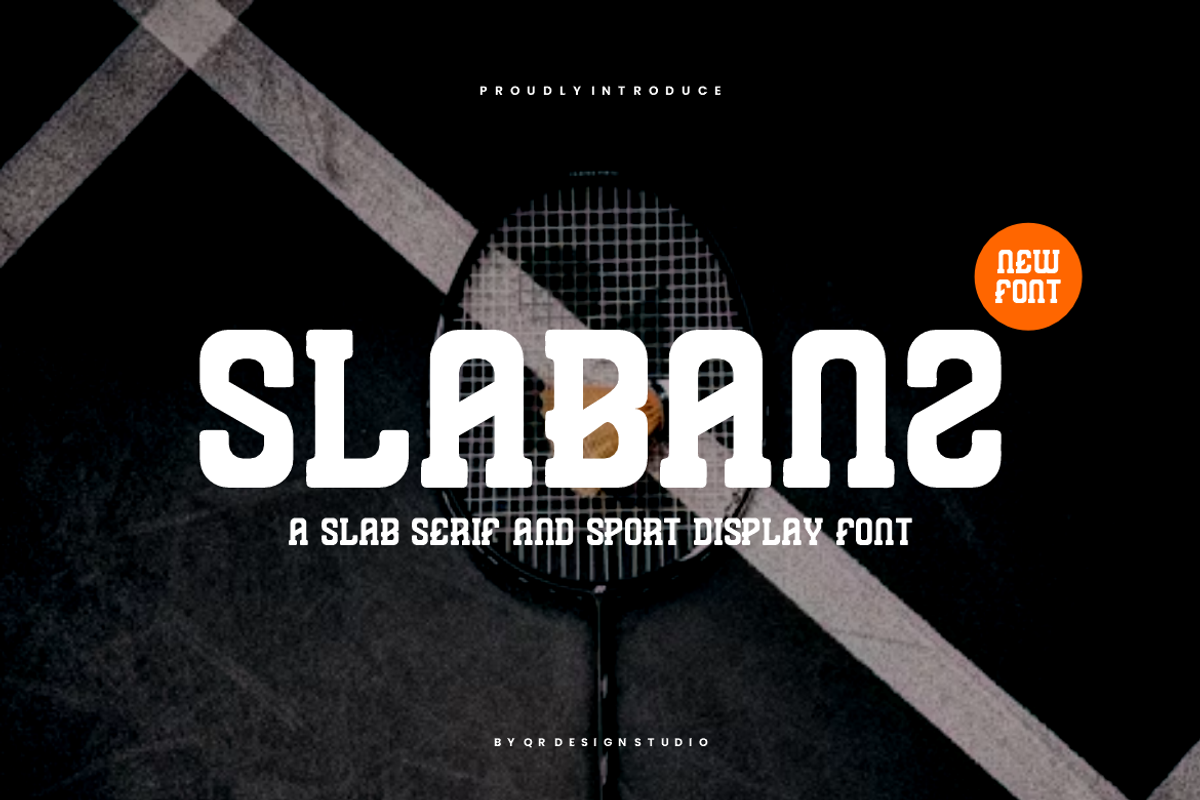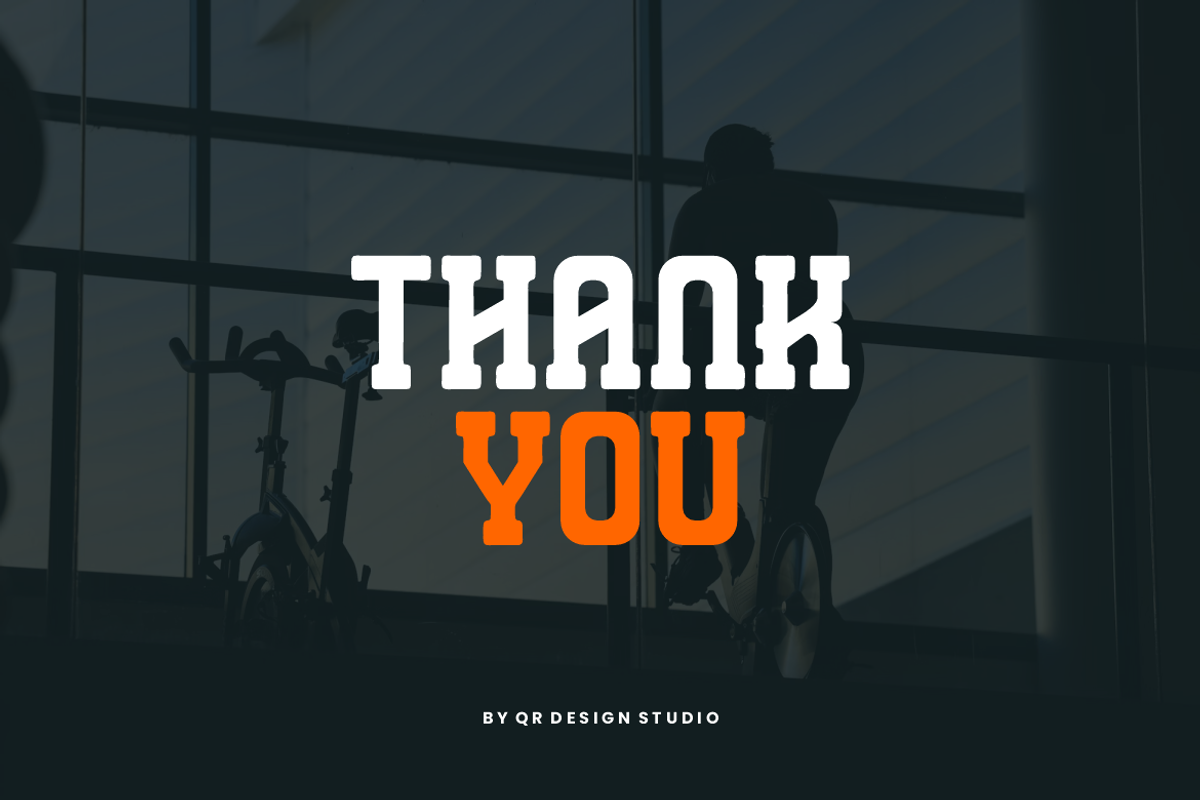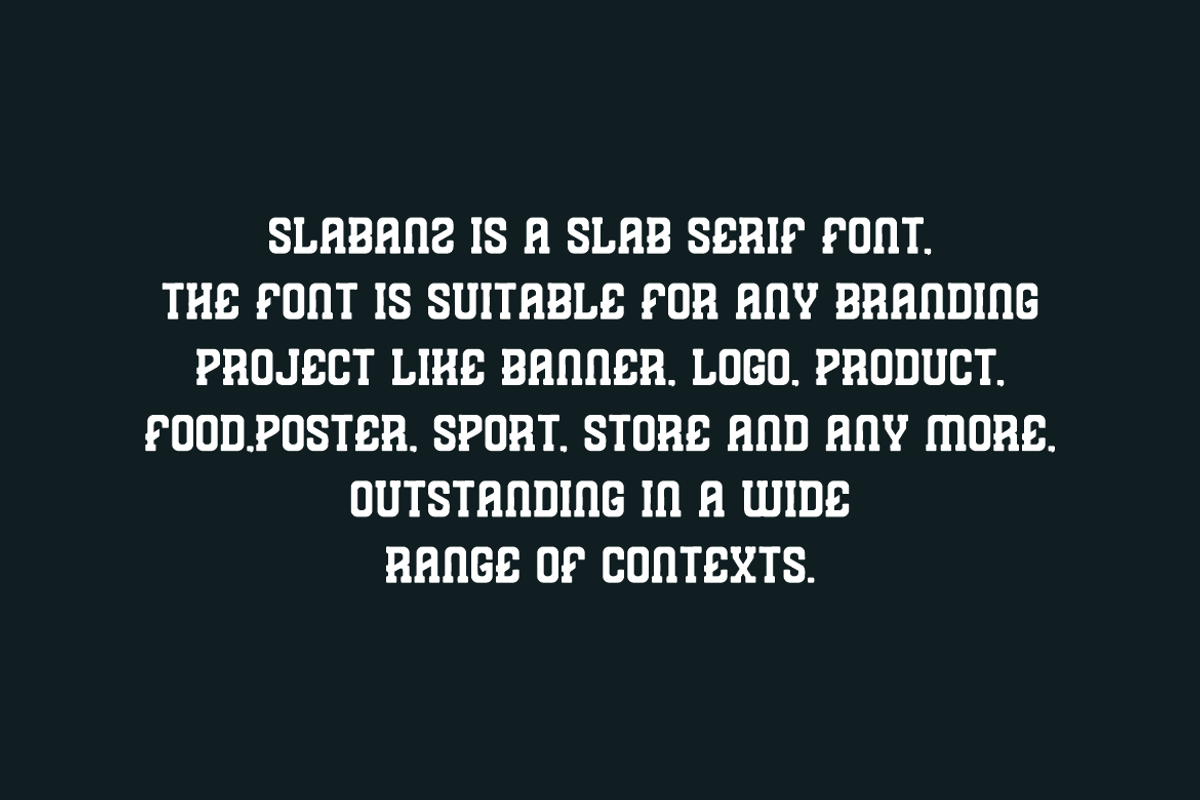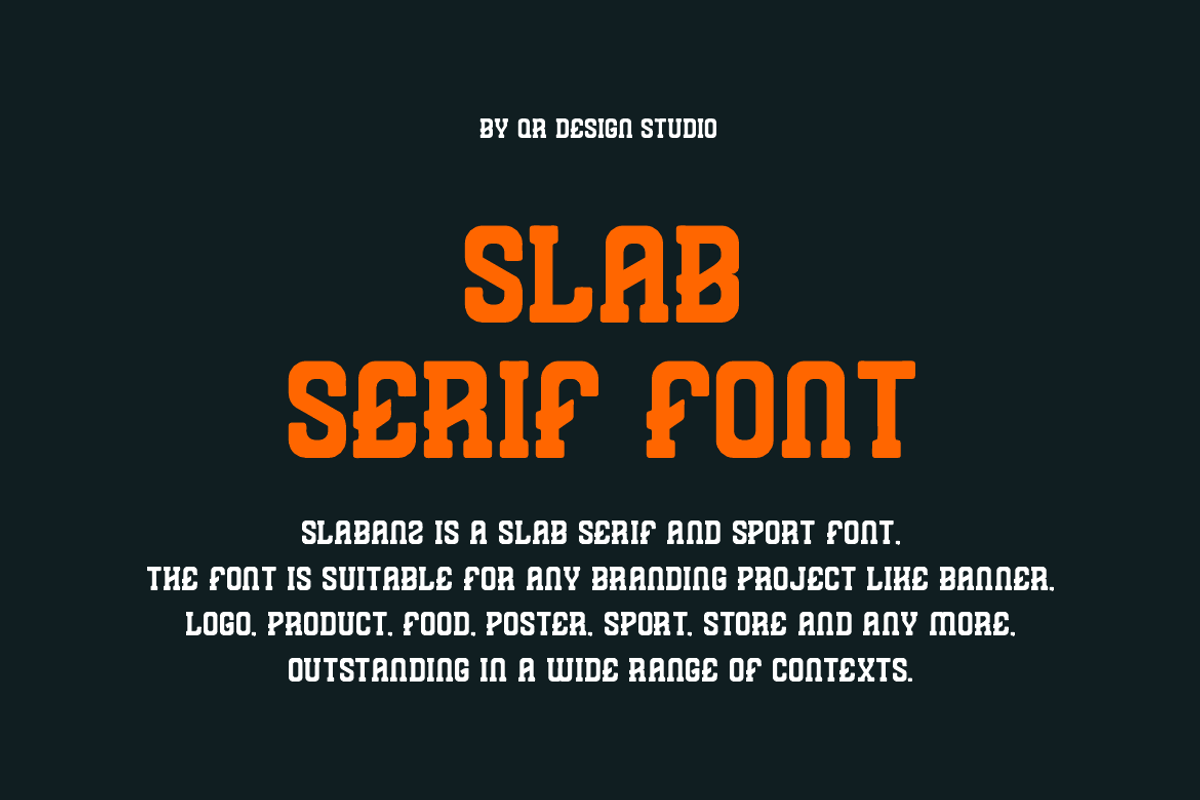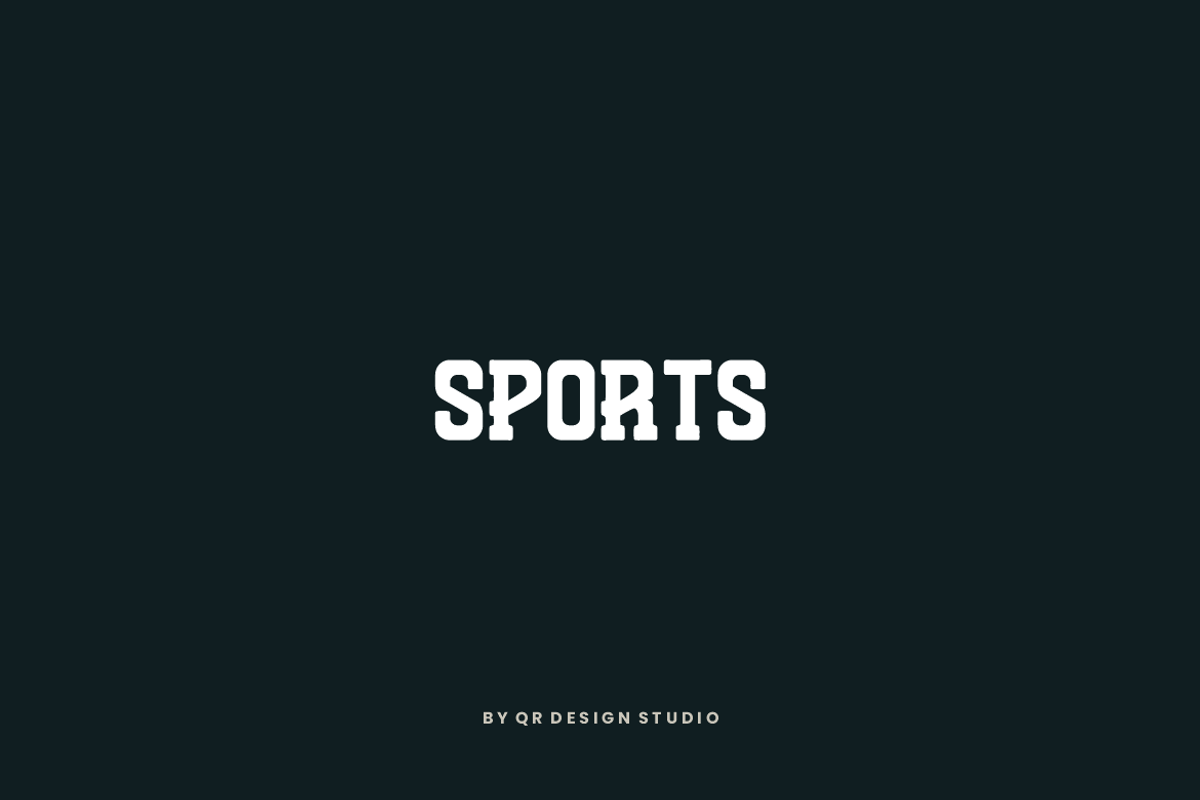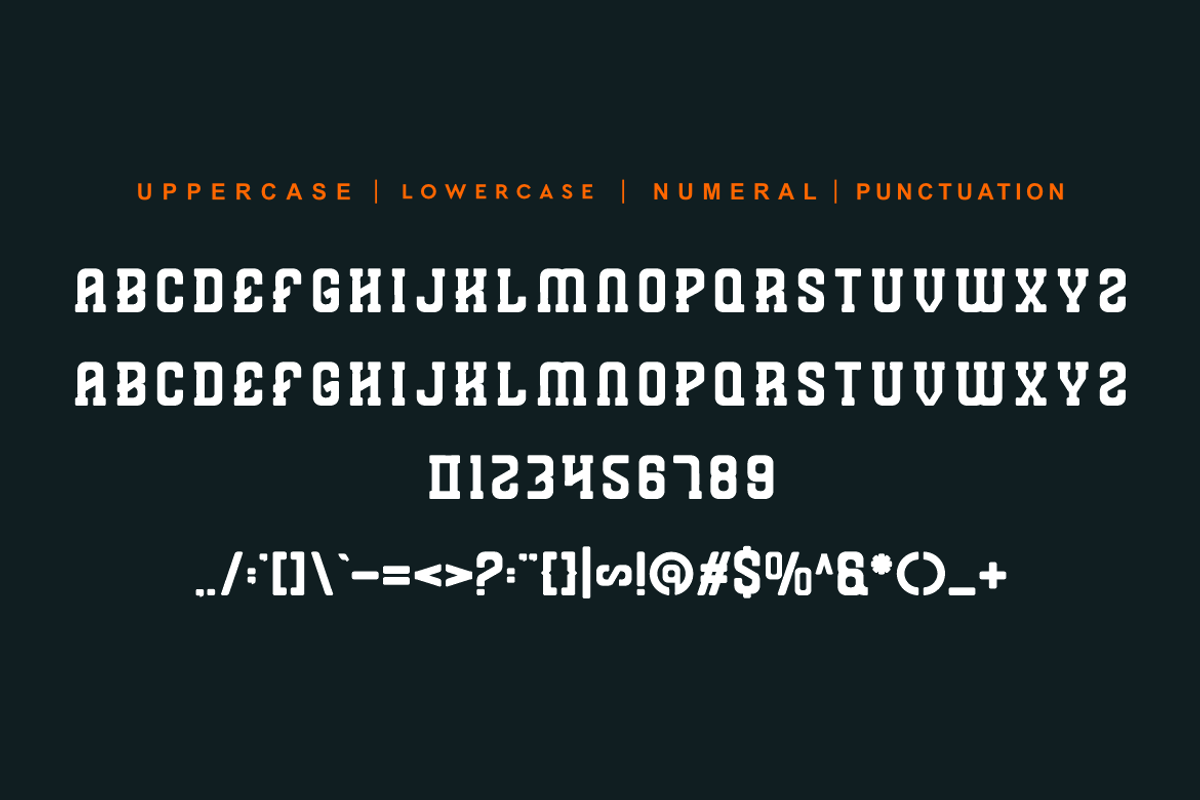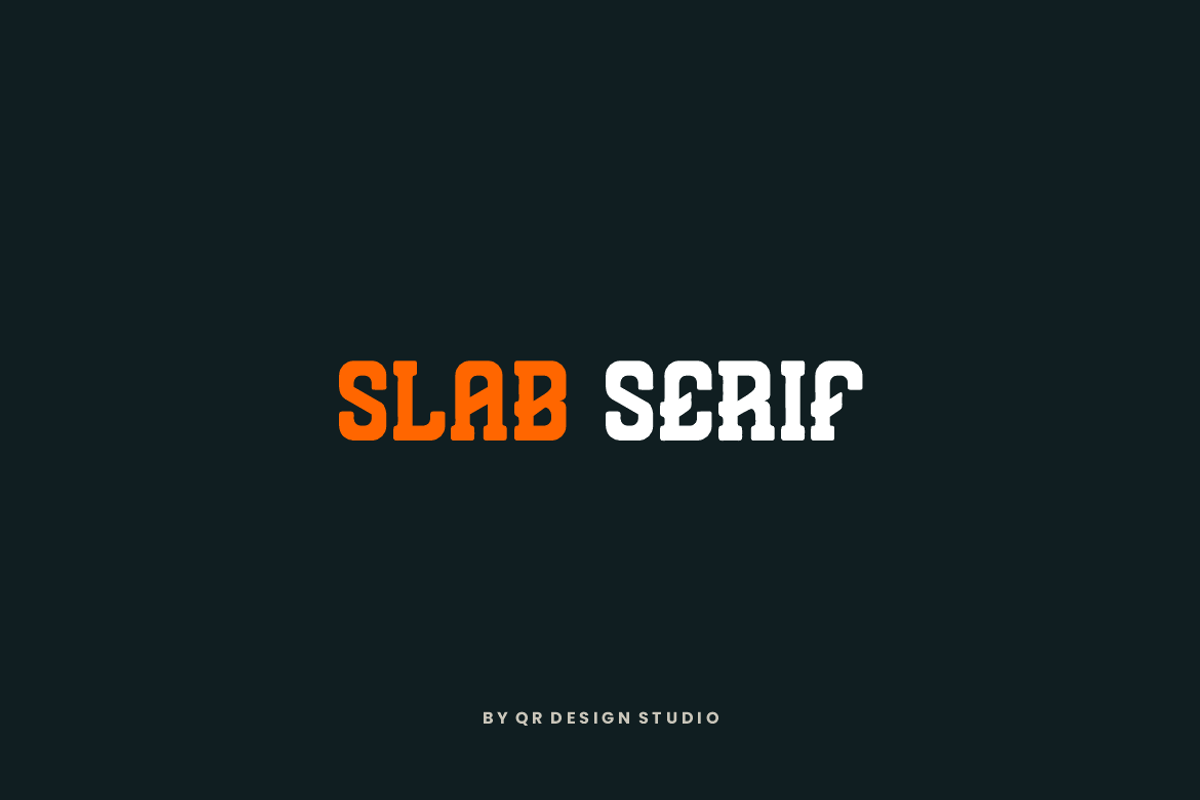
Slabanz - Slab Serif & Sport Font
Slabanz Font is a bold and authentic display font. The font is suitable for any branding project like poster, logo, sport, and many more. Outstanding in a wide range of contexts.